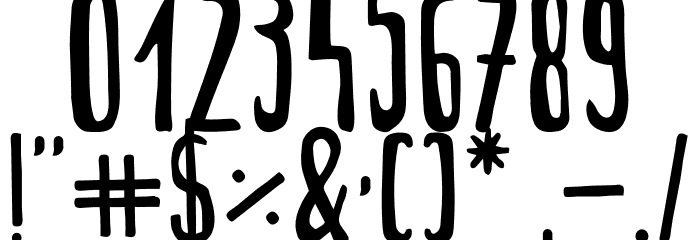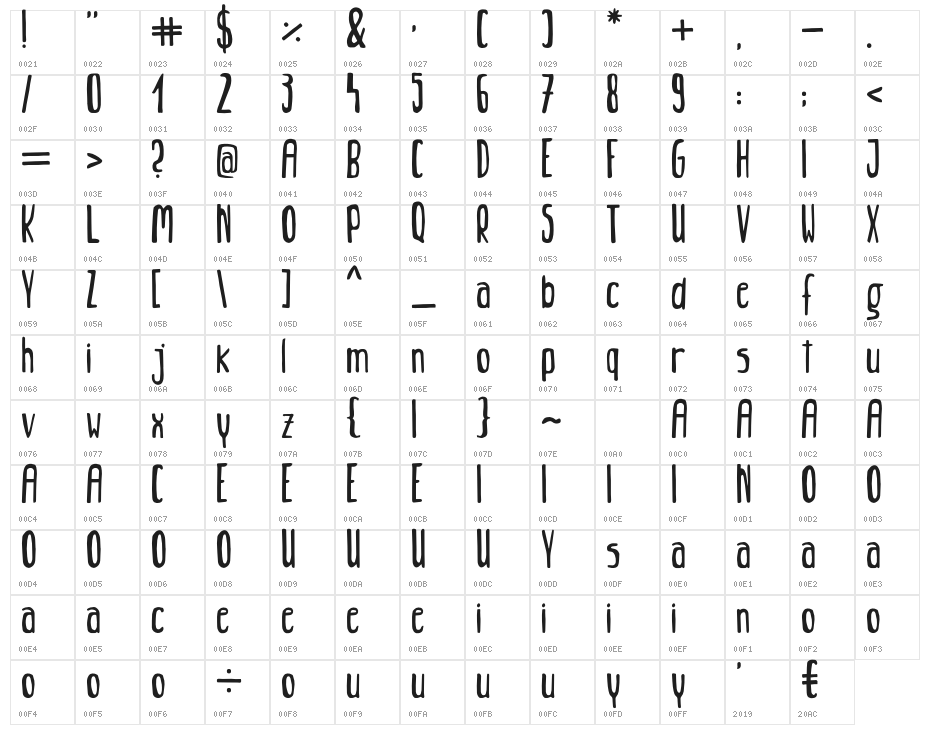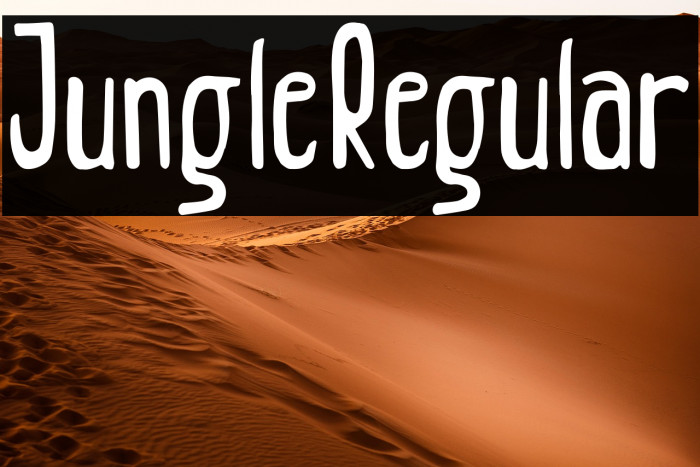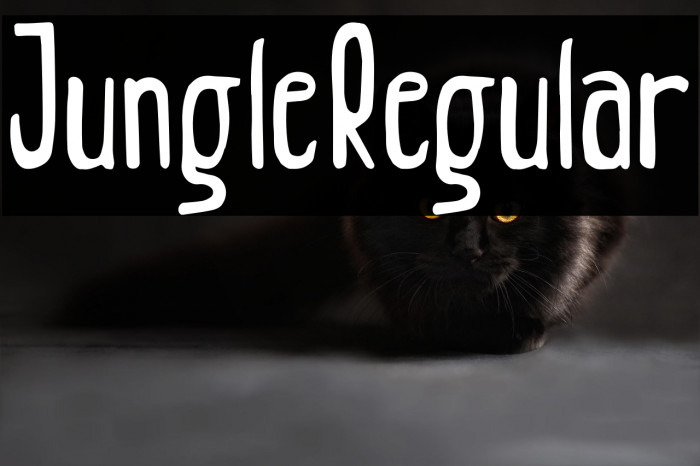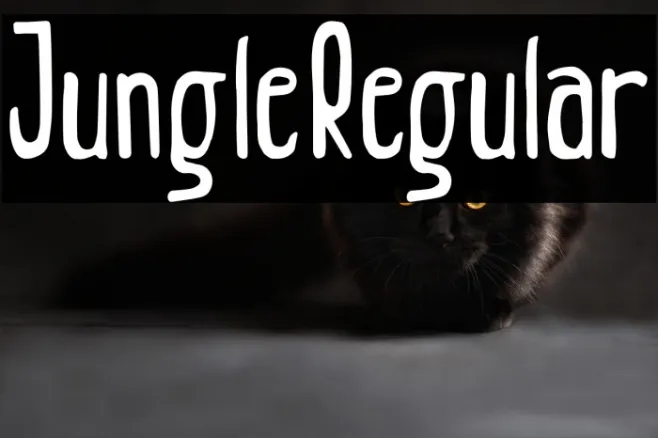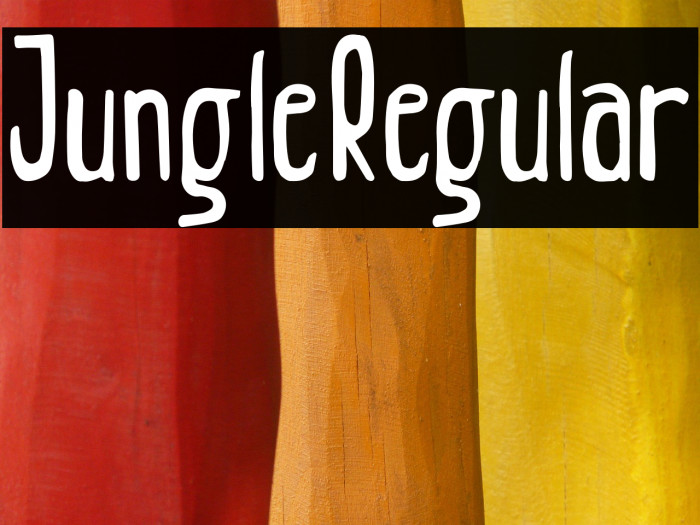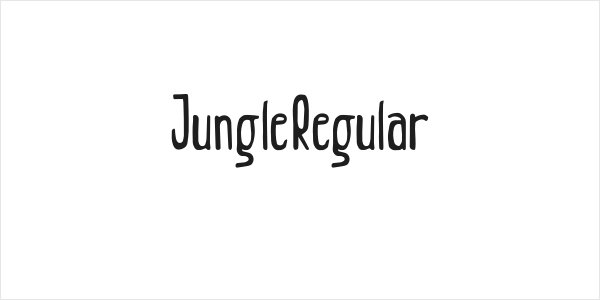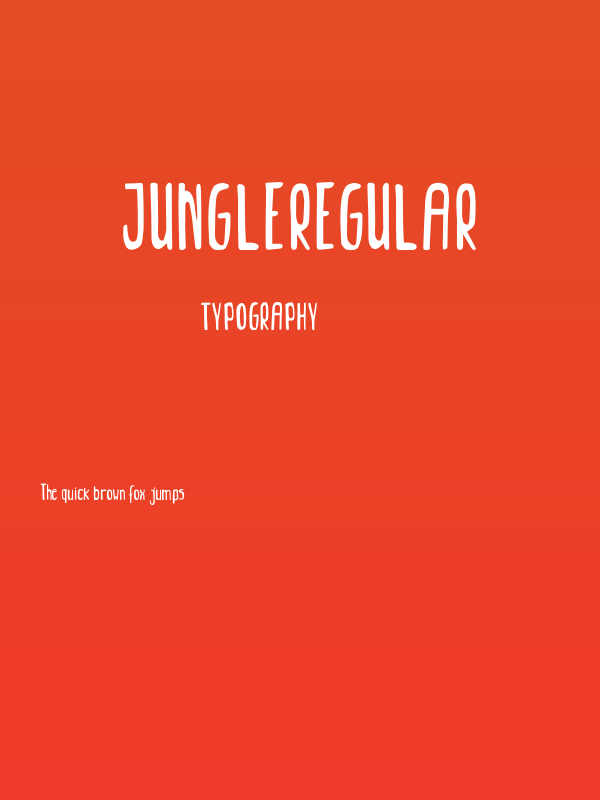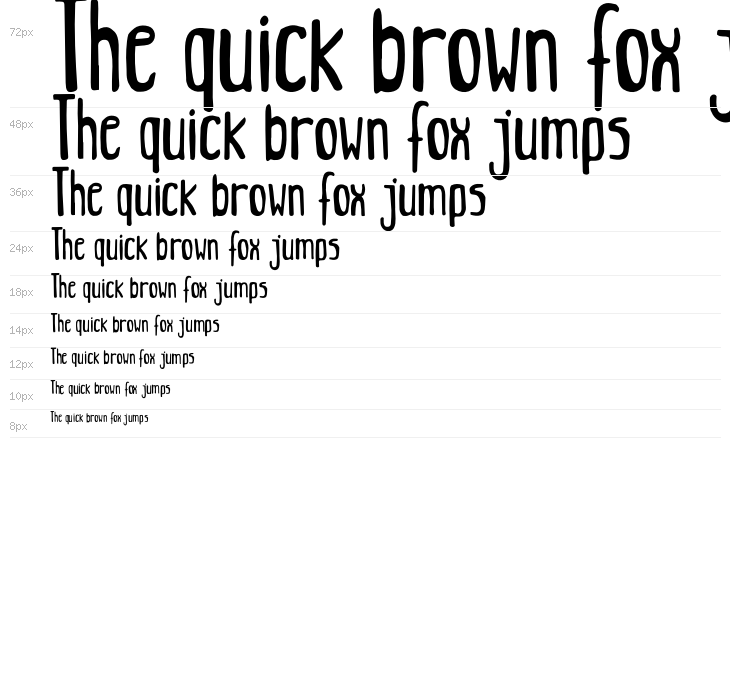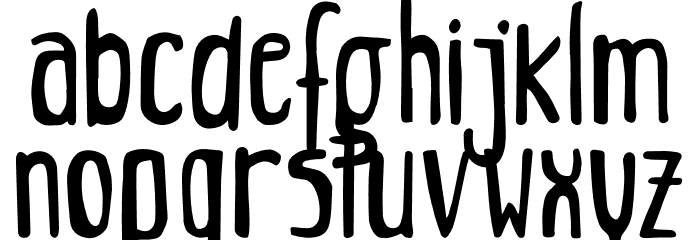
This font features a playful and organic design, characterized by its tall, narrow letterforms with slightly irregular strokes that give it a hand-drawn appearance. The uppercase and lowercase letters maintain a consistent height, creating a cohesive look. The numbers and special characters follow the same style, ensuring uniformity across all glyphs. The font's unique style is reminiscent of natural elements, making it suitable for projects that require a touch of whimsy and creativity. Its distinctiveness lies in the subtle variations in stroke width, adding to its charm and visual interest.
| Use Case | Logos, Headlines |
| Proposed Projects | Ideal for children's book covers, eco-friendly product packaging, and creative branding projects. |